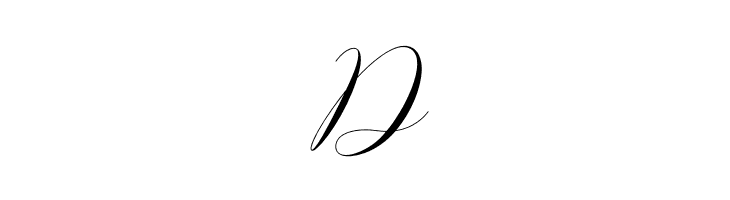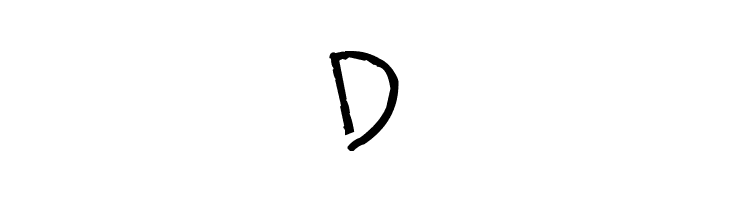
A modern, geometric sans-serif font with clean lines and uniform width.
A modern, geometric font with uniform line thickness and rounded edges.
An elegant script font with flowing, interconnected letters and high-contrast strokes.
( Fonts by Appleberry Studio )
A playful, flowing script font with a natural handwritten style.
A playful, handwritten font with a casual and whimsical style.
( Fonts by Paily Studio )
A flowing, elegant script font with a natural handwritten style.
( Fonts by Amazingmax - Maxim Avdeev )
A bold, angular font with a futuristic and aggressive style.
( Fonts by Amazingmax - Maxim Avdeev )
A pixelated, geometric font with a retro digital style.